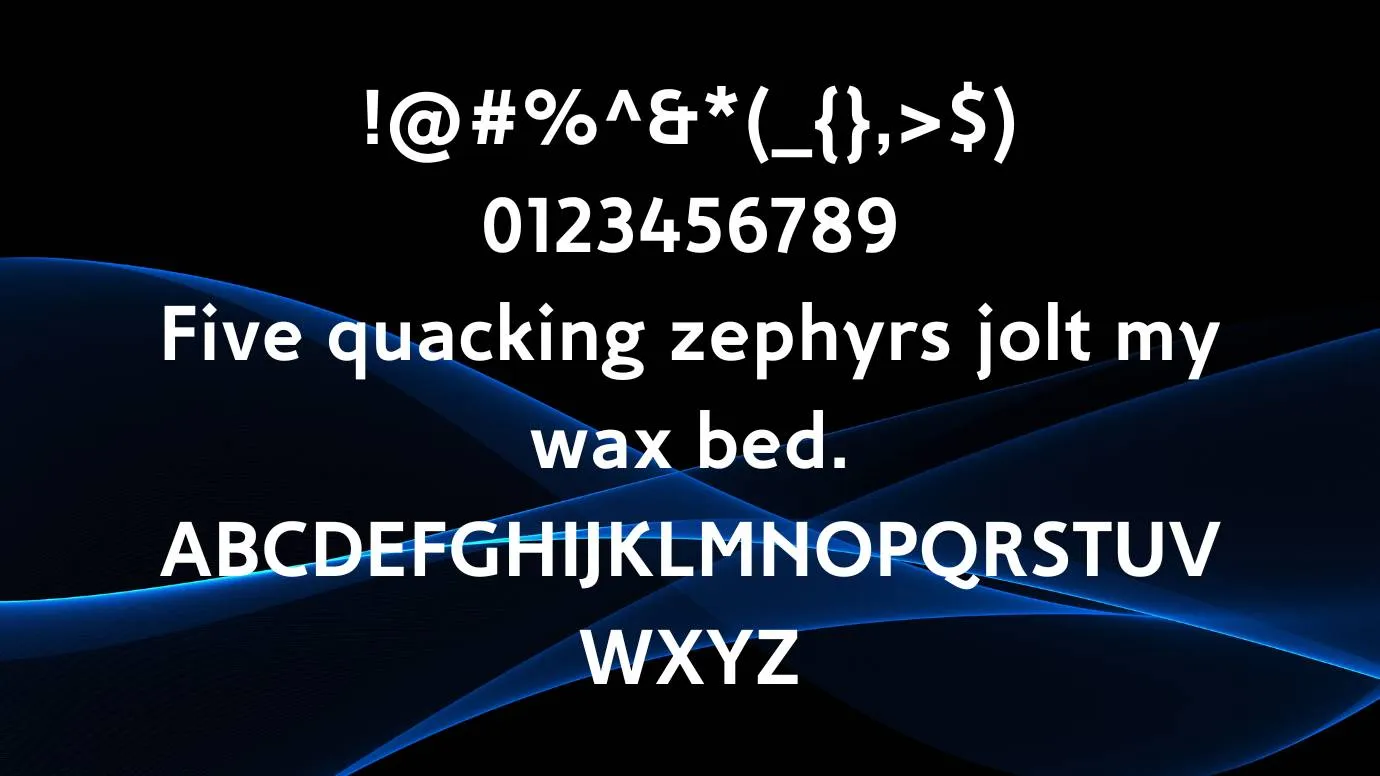
This premium font was designed by one of the famous graphic designers Ramiz Guseynov. He is a well-reputed Russian designer who created many other famous fonts
We are going to introduce one of the stylish typefaces Fox Sans Font which is a member of the sans-serif font family. It has a clean texture and bold appearance that can be used in different noticeable places. It has high-quality texture and visualization. You can design your websites and make incredible features.
This premium font was designed by one of the famous graphic designers Ramiz Guseynov. He is a well-reputed Russian designer who created many other famous fonts with ravishing designs. This has capital letters, small letters, numbers, punctuations, symbols, glyphs, and icons.
It is one of the modern style typefaces that belongs to the sans-serif font family. It comes in 6 different styles with a special can be used in many professional editing software sets of characters and unique designs.
This premium font was designed by one of the famous graphic designers Ramiz Guseynov. He is a well-reputed Russian designer who created many other famous fonts with ravishing designs.